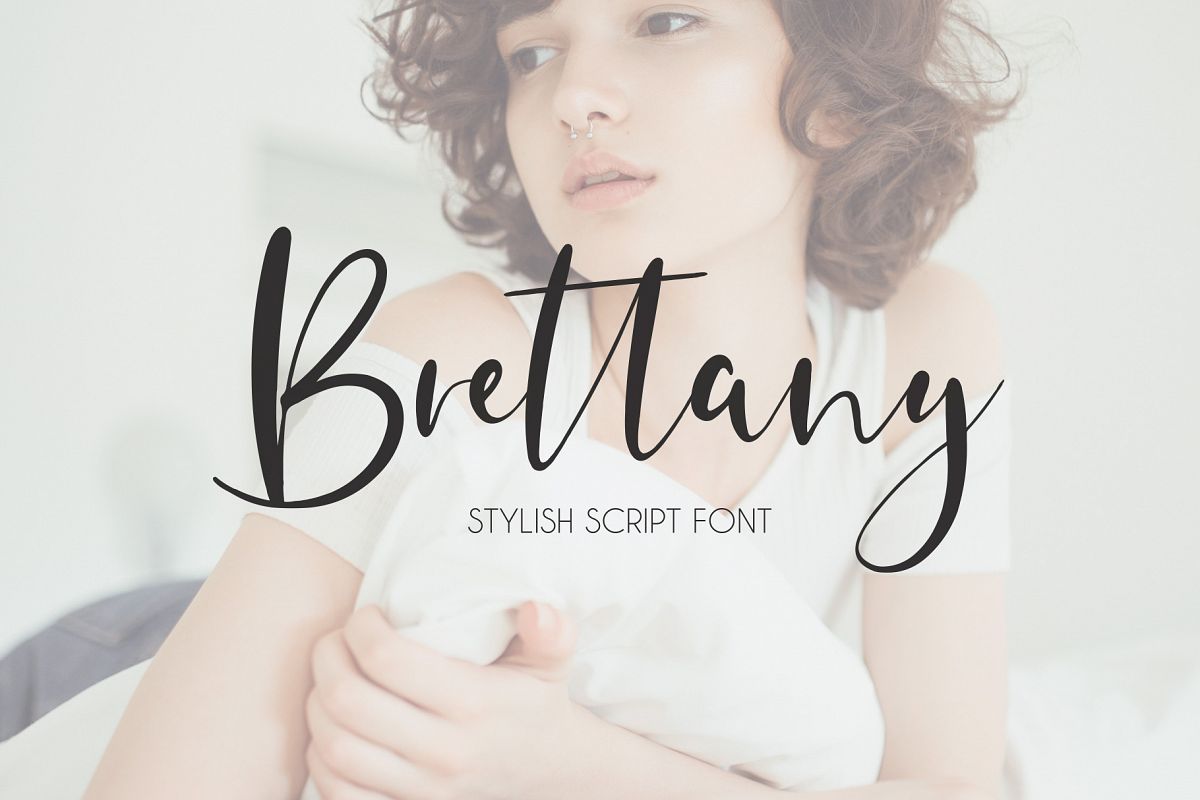
Brettany Script Font
Breattany
Introducing Brettany, a brand new, stylish & beautiful handwritten script font.
Brettany was built with OpenType features and includes numbers, punctuation, ligatures and international characters.Perfect for greeting cards, branding projects, stationery design, social media, packaging, homeware designs, magazine layouts, prints and more!